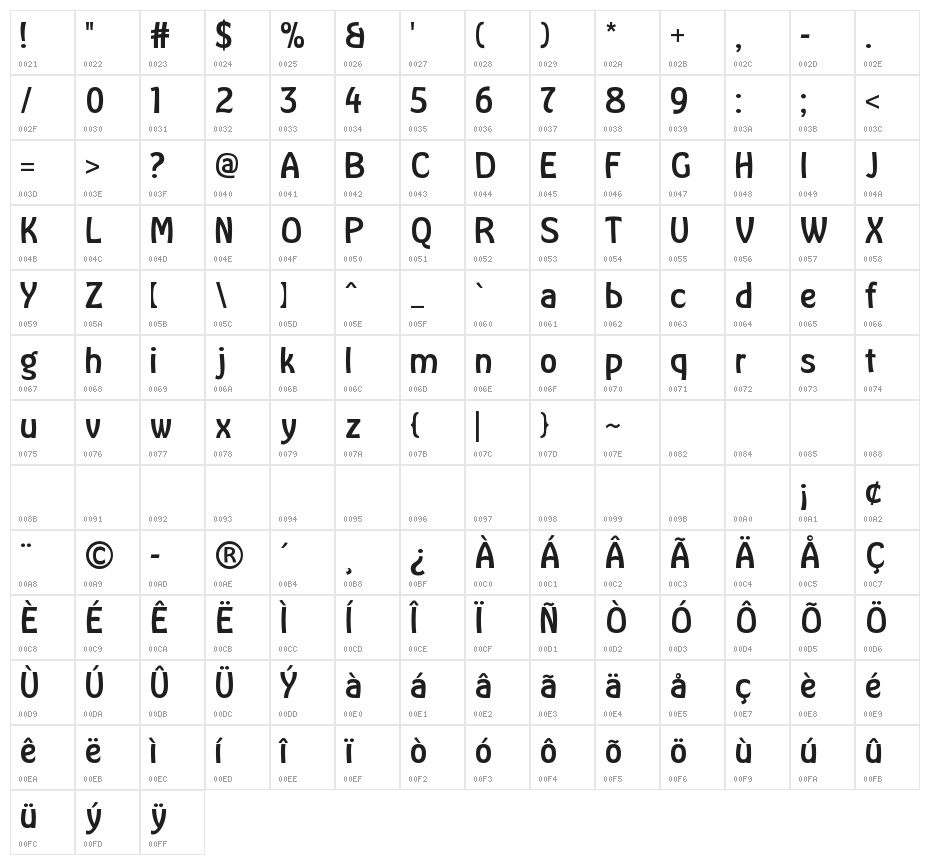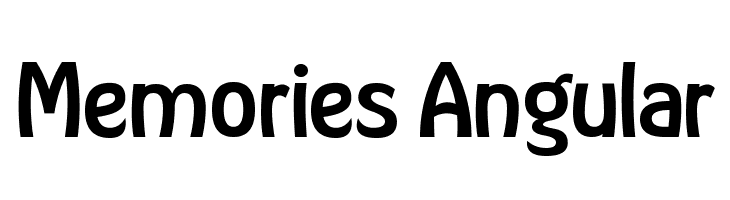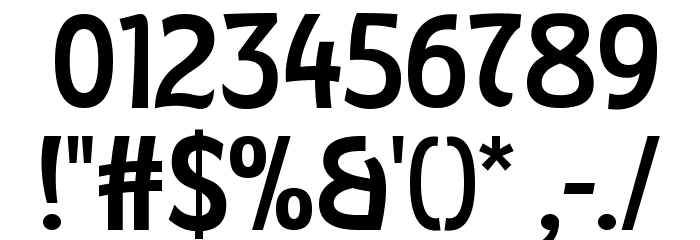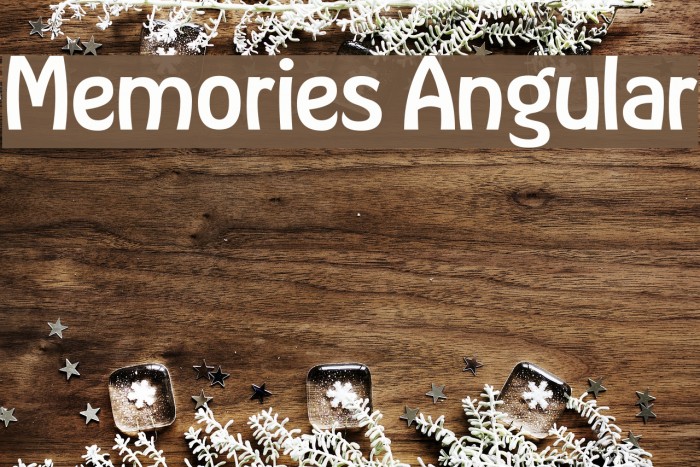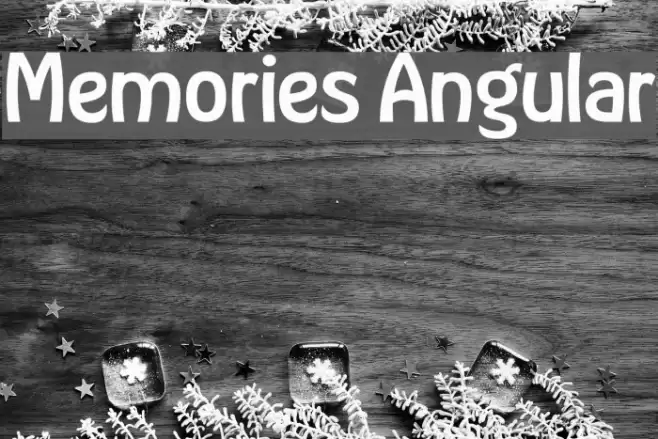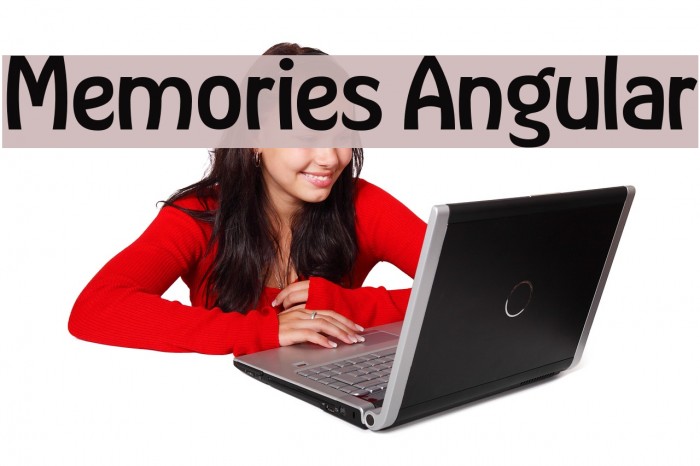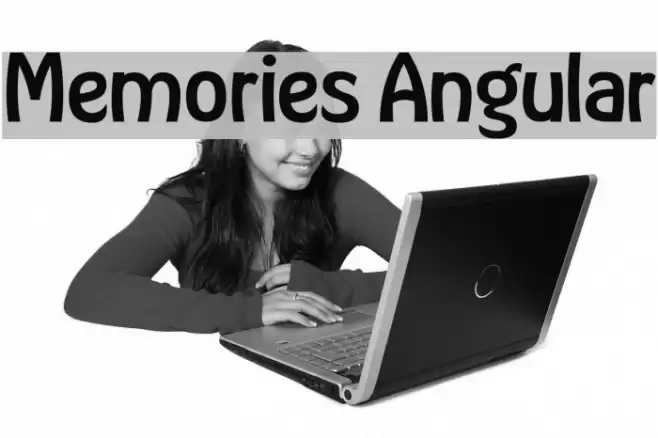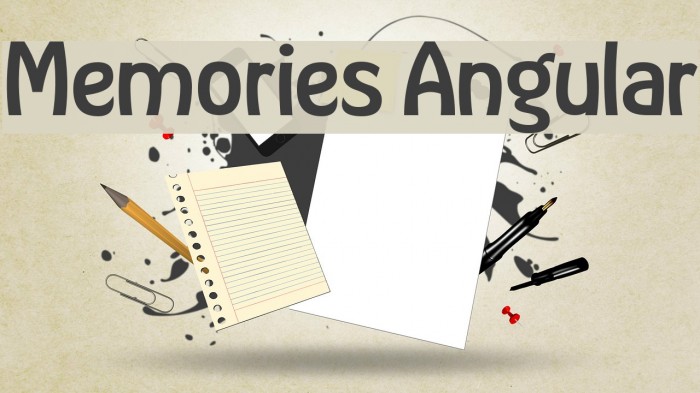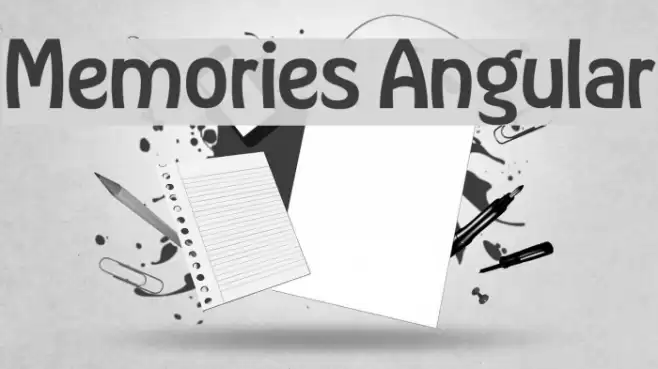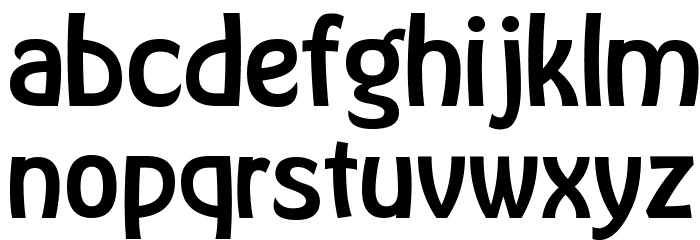
Memories Angular Font
Memories Angular Description
This font features a playful and slightly whimsical design, characterized by its rounded edges and slightly irregular shapes. The letters have a hand-drawn quality, giving them a friendly and approachable appearance. The uppercase and lowercase letters maintain a consistent style, with a slight slant that adds to the dynamic feel. The numerals and special characters are designed to match the overall aesthetic, ensuring a cohesive look across all text. This font's unique style makes it stand out, while still being legible and versatile for various design needs.
| Overall Style | Playful |
| Proposed Projects | Ideal for children's books, playful branding, greeting cards, and creative posters. |